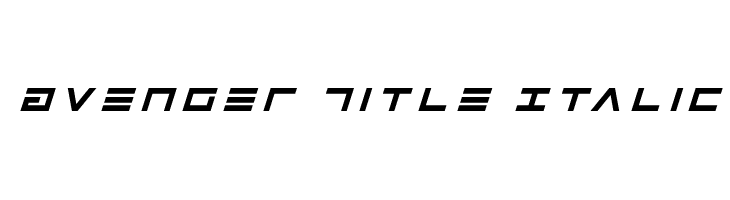
A bold, angular font with a dynamic, italicized style.
A bold, dynamic font with angular lines and a slanted orientation, perfect for impactful designs.
A bold, italicized font with a dynamic, heroic style.
A bold, italicized typeface with a dynamic and heroic style.
A bold, italicized font with a dynamic and heroic style.
A bold, italicized font with a dynamic and futuristic style.
A bold, dynamic font with sharp angles and a superhero-inspired style.
A bold, angular font with a dynamic and futuristic style.
A bold, italicized font with strong, dynamic letterforms and a modern, impactful style.
A bold, slanted font with a dynamic and powerful style.